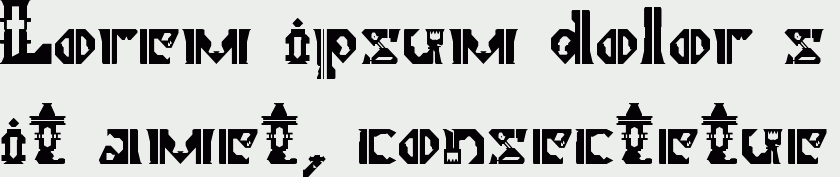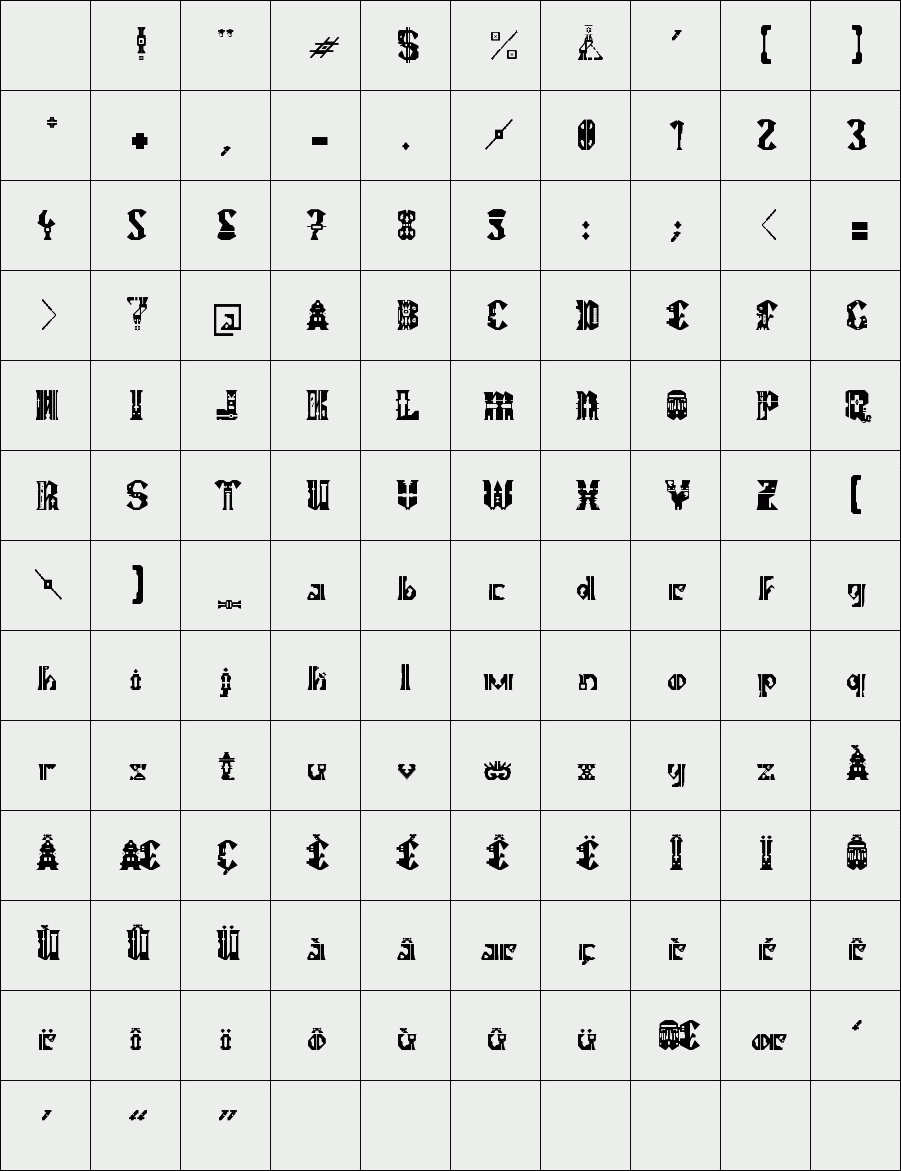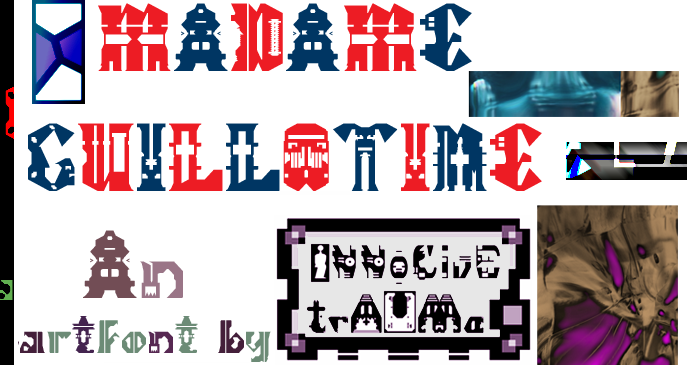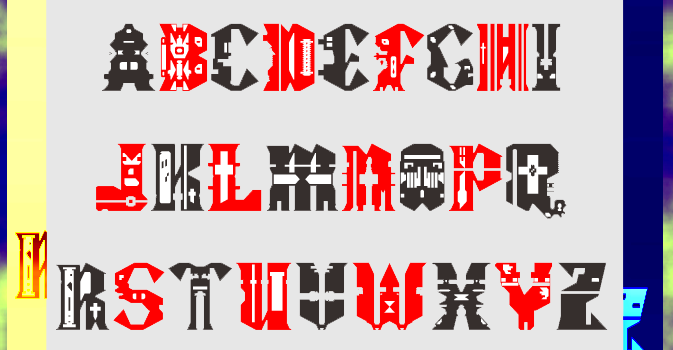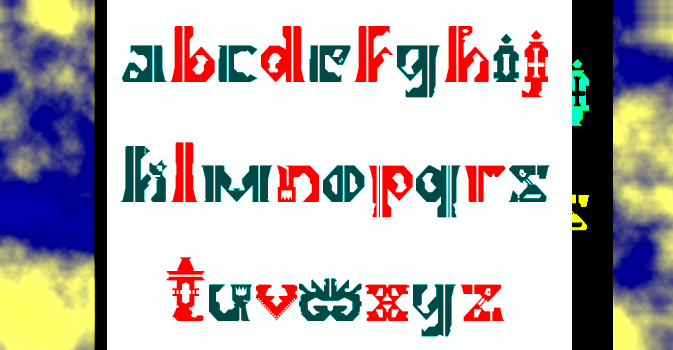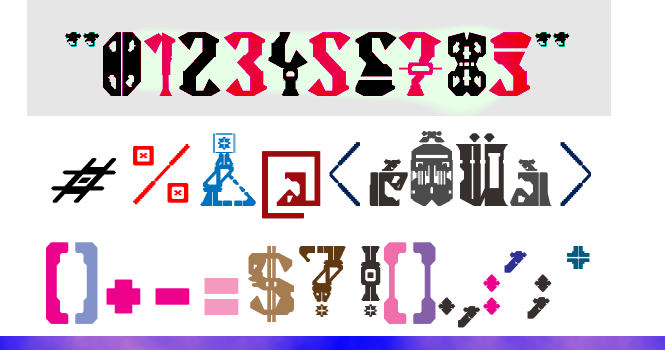
trAUMa 77 / Madame Guillotine
"Madame Guillotine", like all the "trAUMa" series, works at the frontier between Art & Type Design, Figuration & Abstraction, each font is a comprehensive world in which every glyph is a "living" entity. But put together they can produce your messages in the most accurate way.